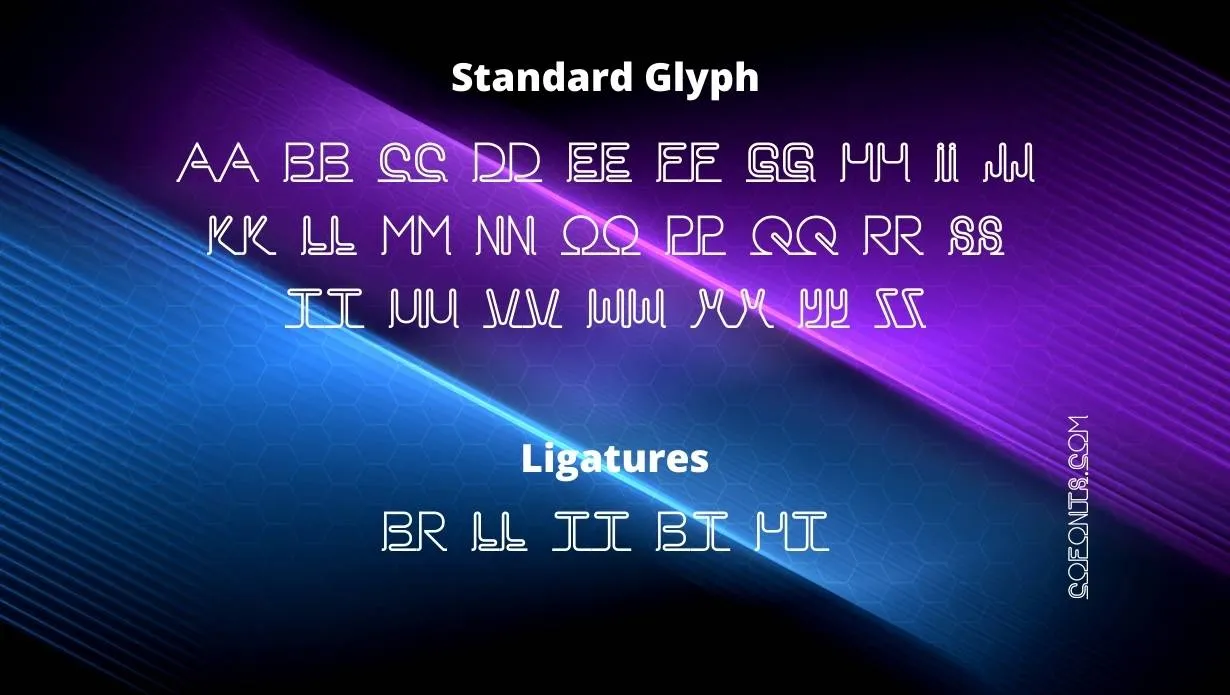
Neon Lights Font Free Download
Preview of Neon Lights Font showing glowing letterforms Neon Lights Font style variations and electric aesthetics
Designer
Electric Type Co.
About Neon Lights Font
Neon Lights Font captures the electrifying energy and retro-futuristic vibe of classic neon signage. With its glowing outlines, vibrant colors, and authentic tube-like letterforms, this font brings the magic of city nightlife to your designs. Each character pulses with energy, mimicking the actual behavior of real neon gas when electrified.
Inspired by 1980s arcades, classic diners, and urban nightscapes, Neon Lights Font features authentic tube connections, realistic glow effects, and that unmistakable retro charm. The font maintains excellent readability while delivering maximum visual impact, making your text impossible to ignore.
Design Characteristics
• Authentic neon tube letterforms
• Multiple glow effect layers
• Retro 80s aesthetic influences
• Urban nightlife energy
• Electric color compatibility
• Pulsing animation ready
Neon Features
• Realistic tube connections and bends
• Multiple glow intensity levels
• Flicker and pulse animations
• Color gradient compatibility
• Urban texture integration
• Retro-futuristic details
Best Uses
• Nightclub promotions and event posters
• Retro 80s themed designs
• Urban streetwear branding
• Gaming and arcade interfaces
• Music festival graphics
• Bar and restaurant signage
• Cyberpunk and sci-fi projects